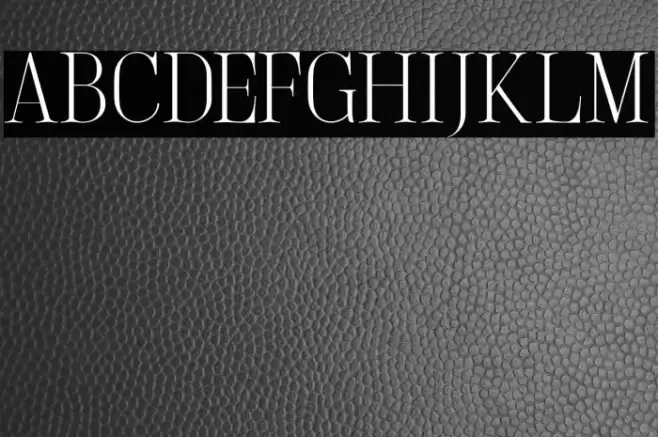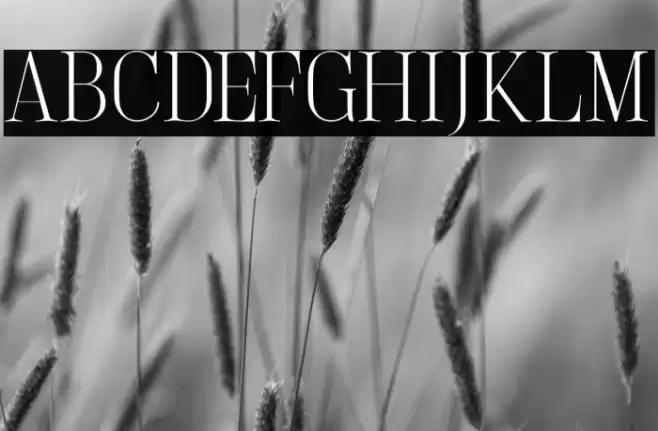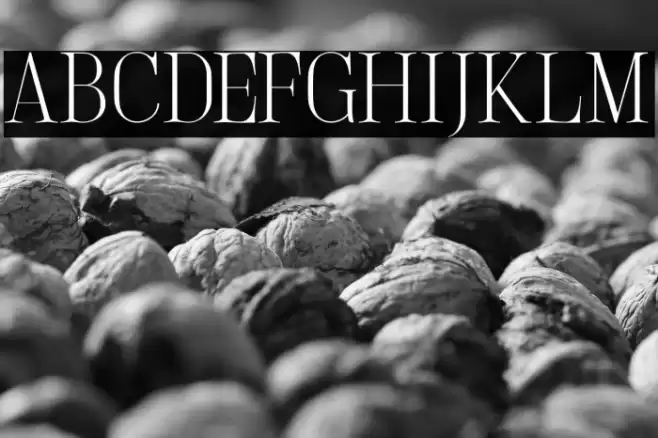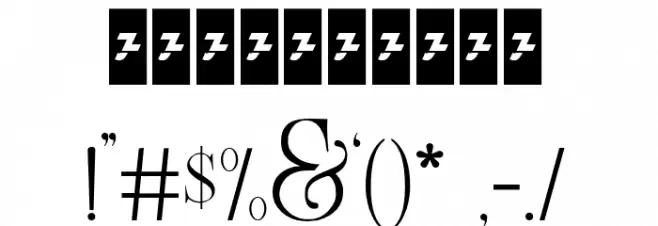
LightlySailler Font
LightlySailler Description
This font features a refined and elegant serif style, characterized by its thin, elongated strokes and high contrast between thick and thin lines. The uppercase letters are tall and stately, while the lowercase letters maintain a graceful flow with subtle curves. The numerals are consistent with the overall aesthetic, offering a classic look. Special characters are designed with the same attention to detail, ensuring a cohesive appearance across all glyphs. This font's sophisticated style makes it suitable for projects that require a touch of elegance and formality.
An elegant serif font with high contrast and refined details from Uncategorized fonts.
- Font: LightlySailler
- Proposed Projects: Ideal for wedding invitations, luxury branding, editorial design, and high-end product packaging.
- Overall Style: Classic
- Use Case: Headlines, Logos, Editorial design